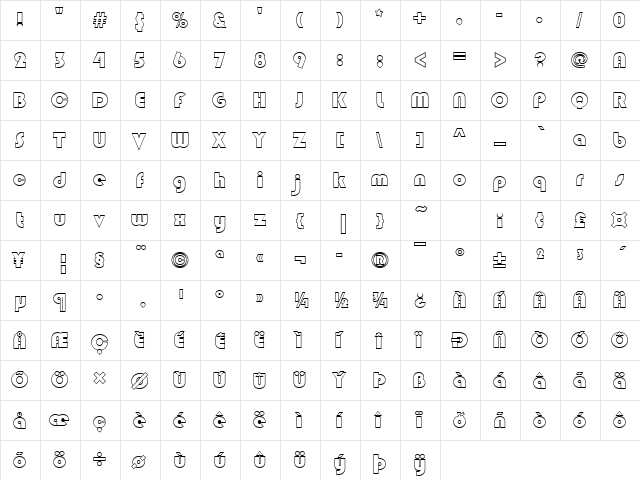
Blippo Becker Outline Regular
Design Context for Blippo Becker Outline Typeface
Blippo Becker Outline is built around its visual character rather than neutral utility — its distinctive forms are designed to make an impression at display sizes.
Font Pairing: Pair with a clean neutral sans-serif for body copy to let Blippo Becker Outline's character lead without overwhelming the composition.
Pro Tip: Treat Blippo Becker Outline as the centrepiece of your typographic hierarchy. One strong heading set in a decorative face can carry an entire layout.